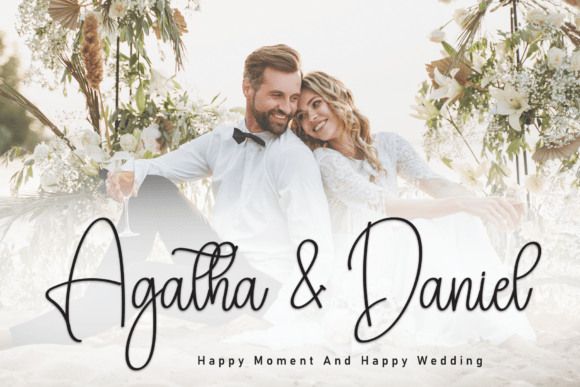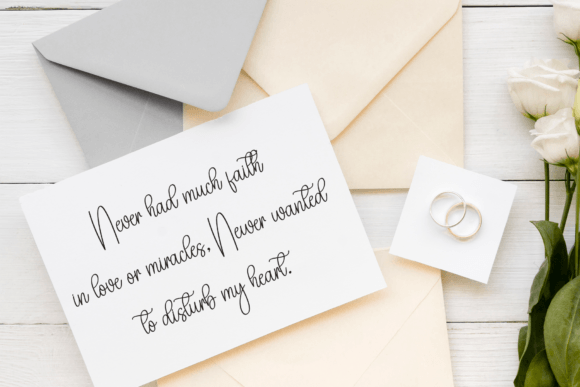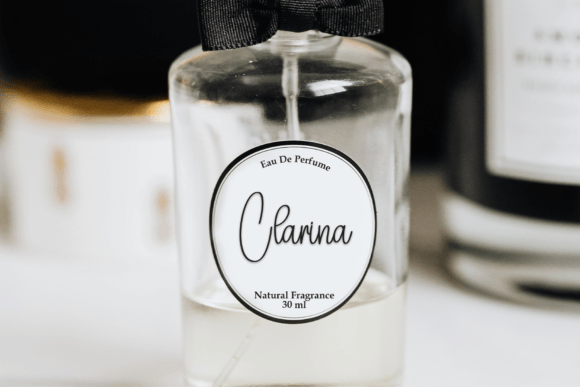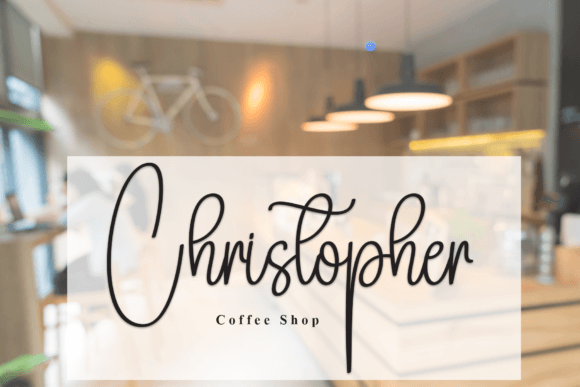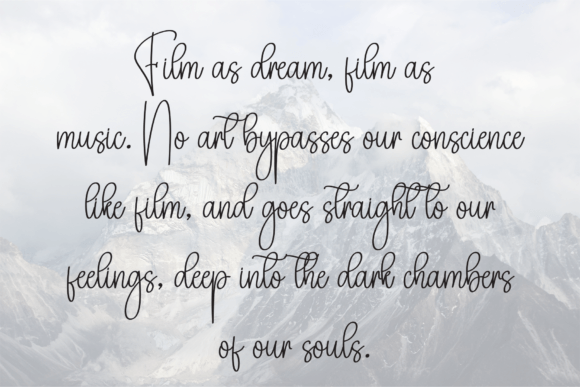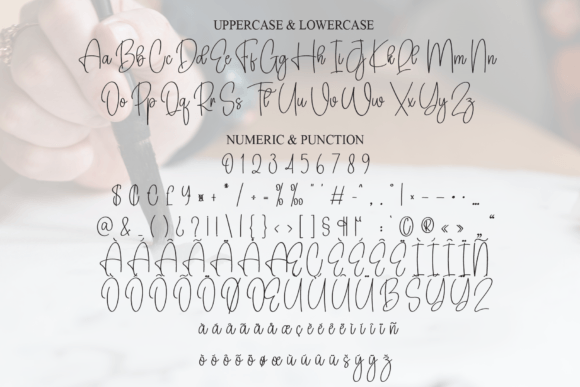
Introduction to Malissa Calligraph Font
Malissa Calligraph is a charming handwritten font that brings a sweet, personal touch to your designs.
With its smooth, flowing strokes and friendly character, it’s perfect for invitations, greeting cards, and cozy branding Add warmth and personality to your projects with the delightful charm of Malissa Calligraph.
Key Features of Malissa Calligraph Font